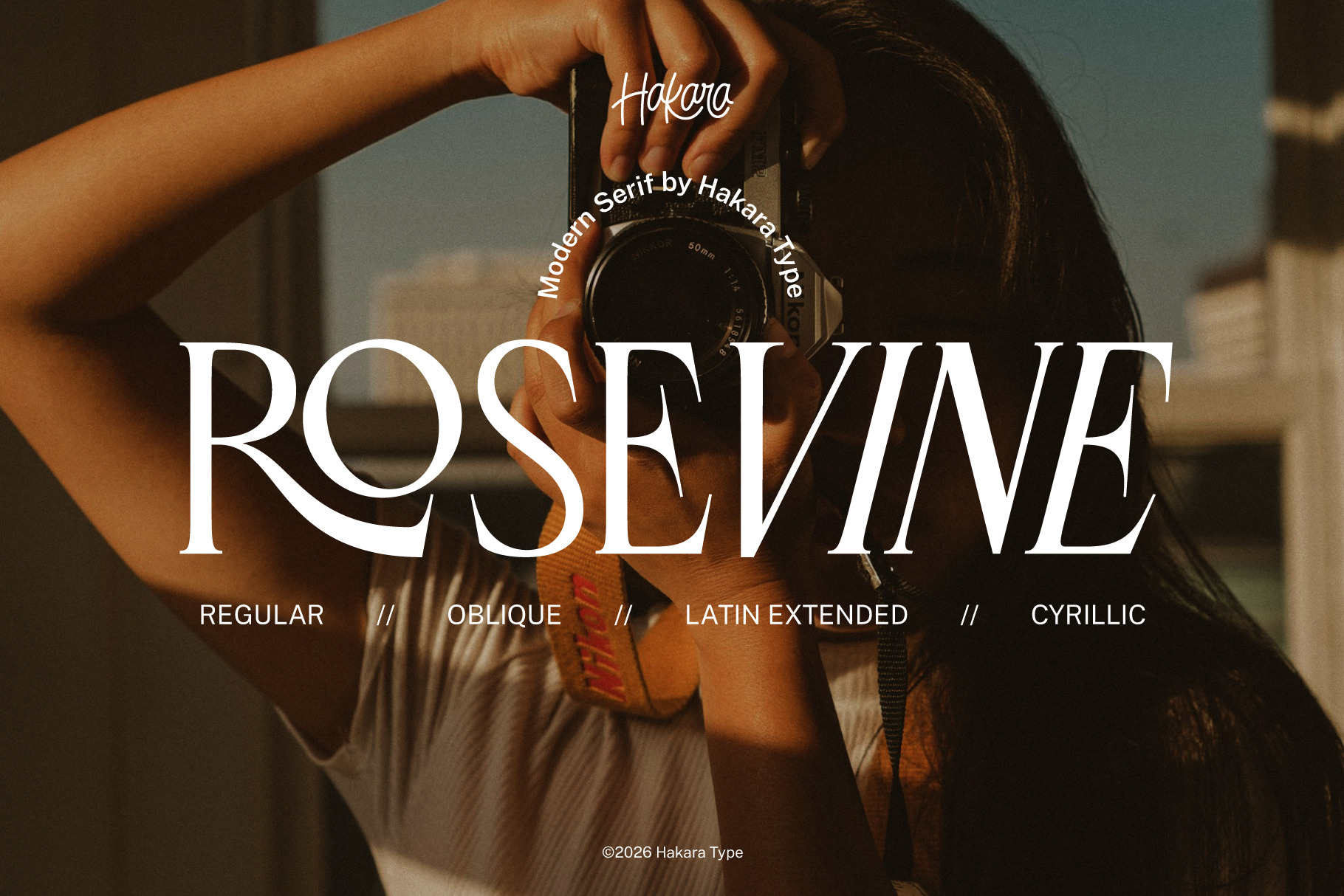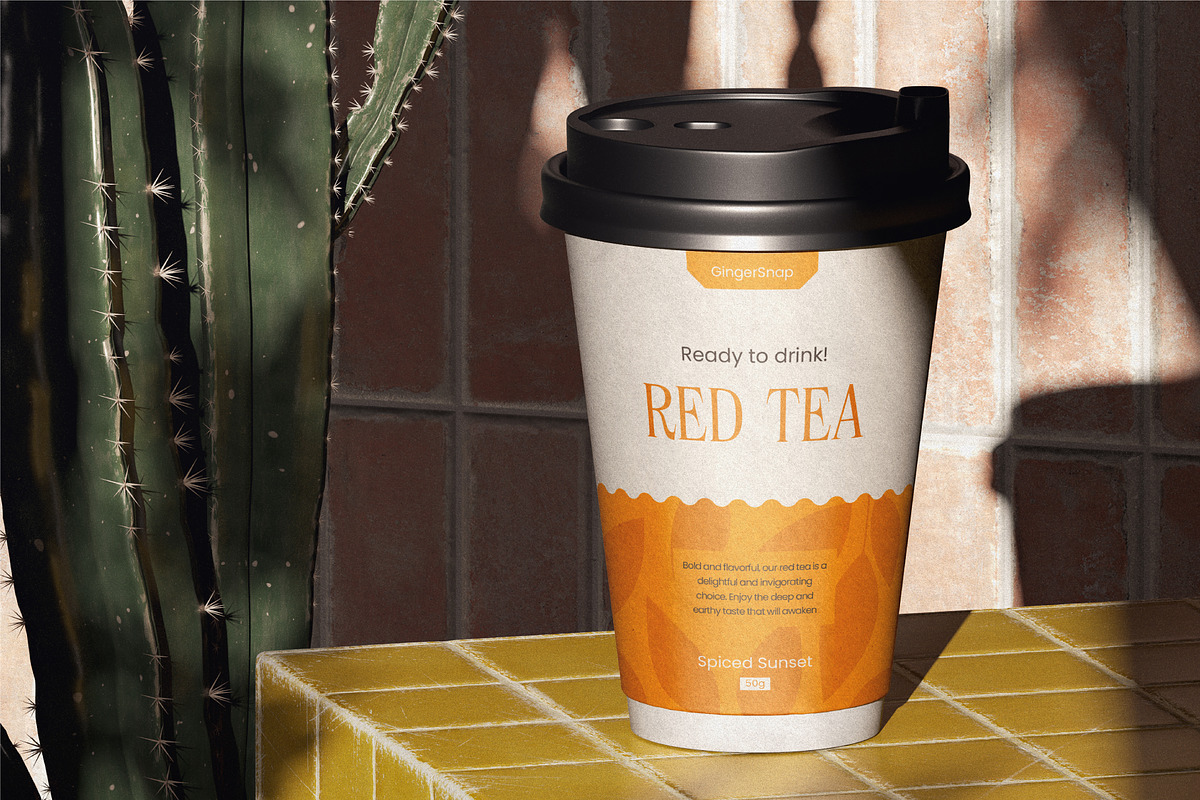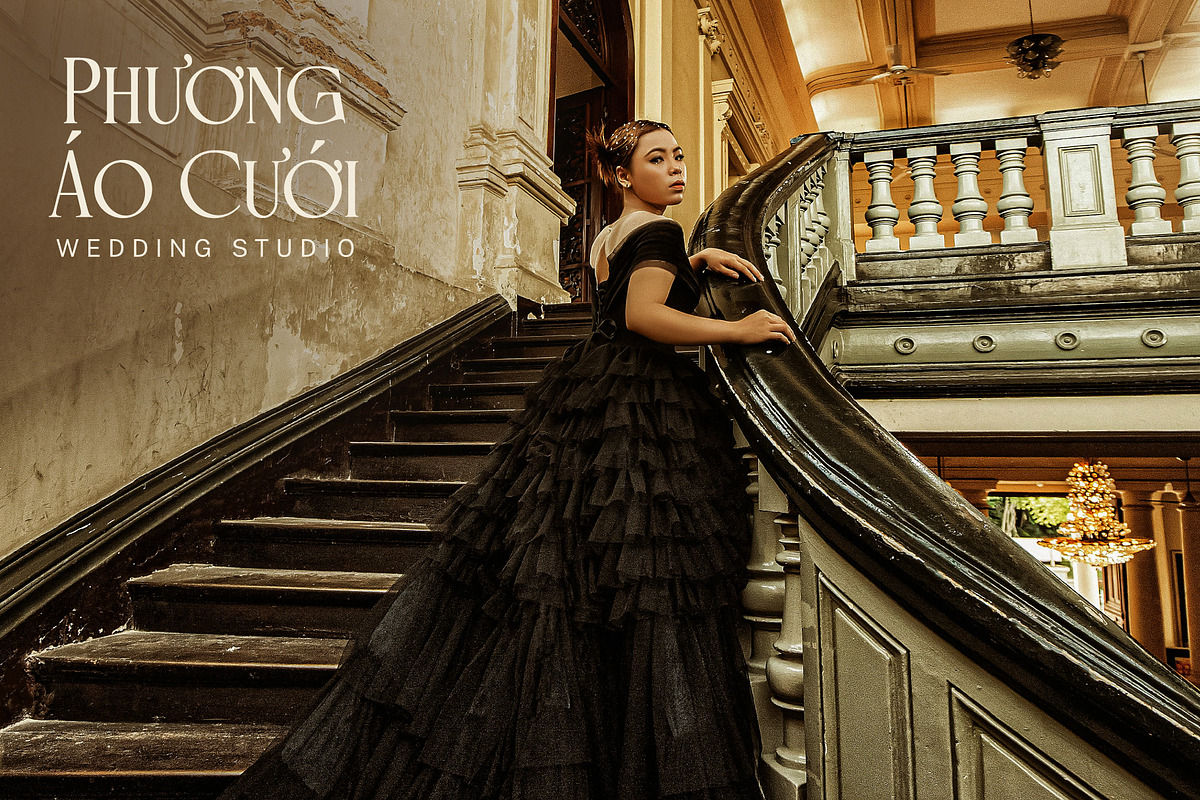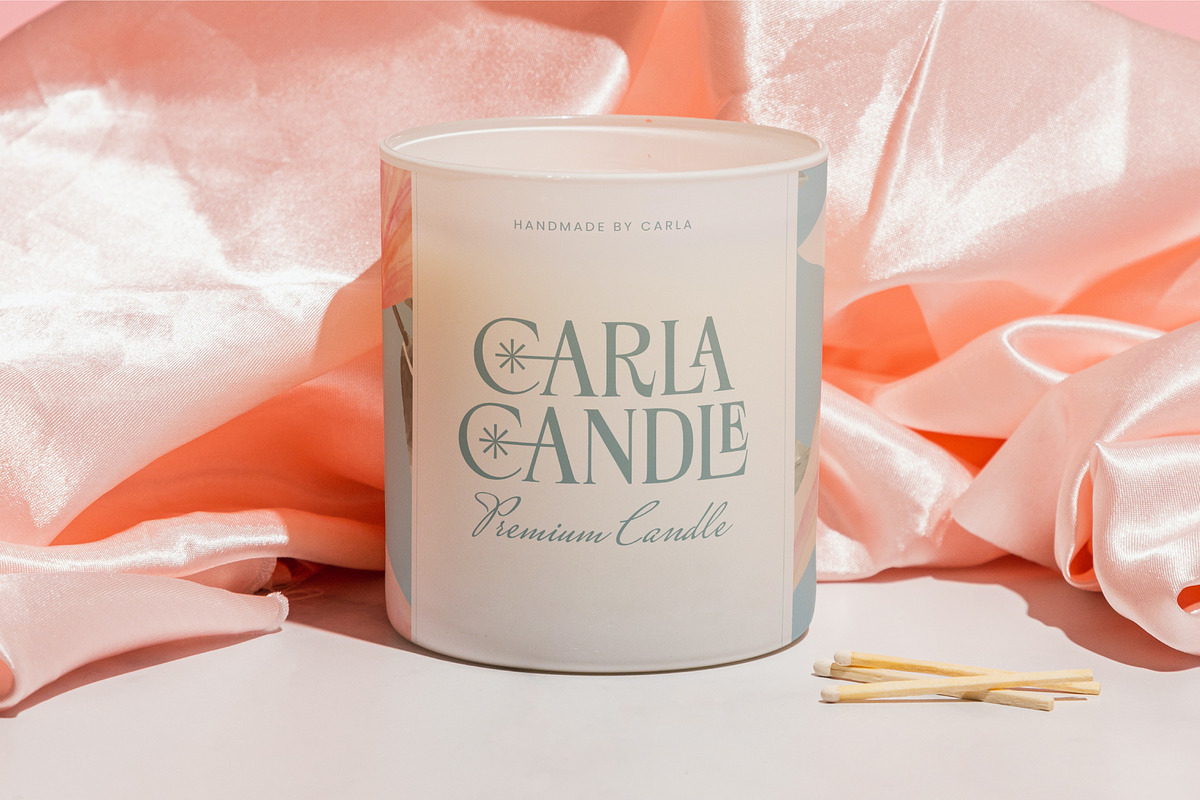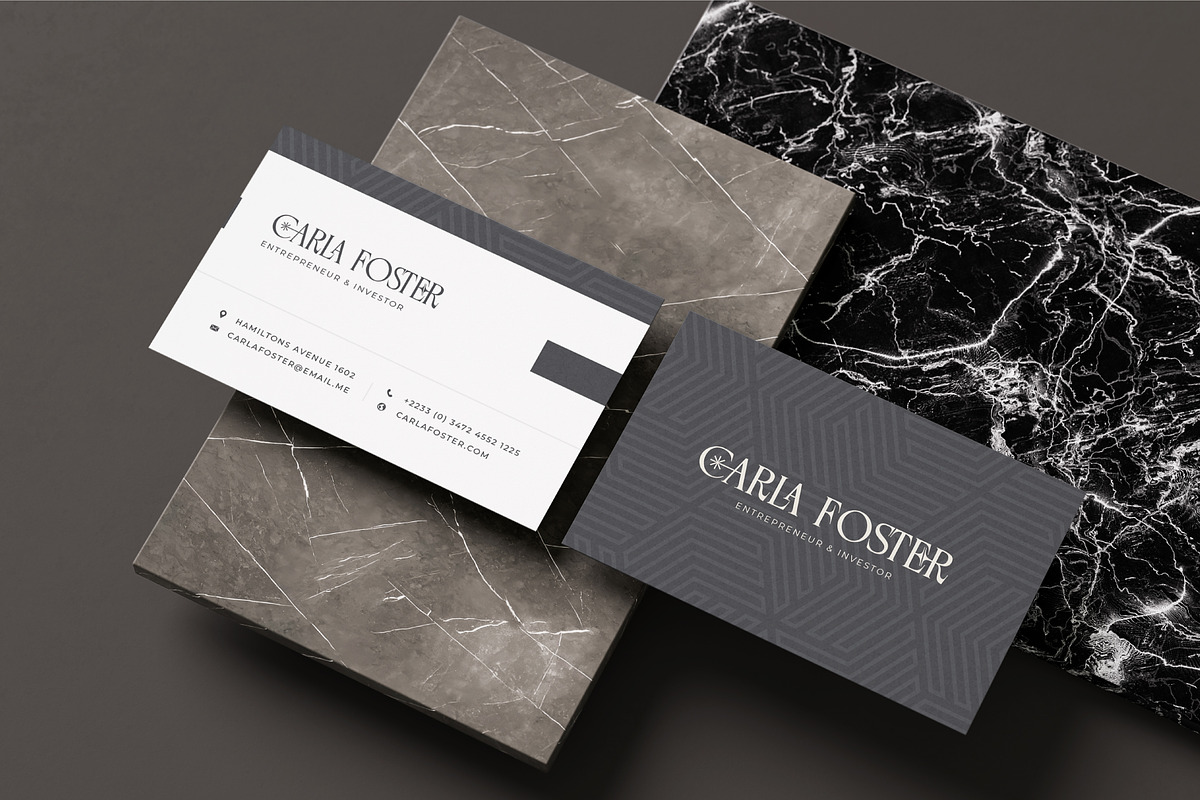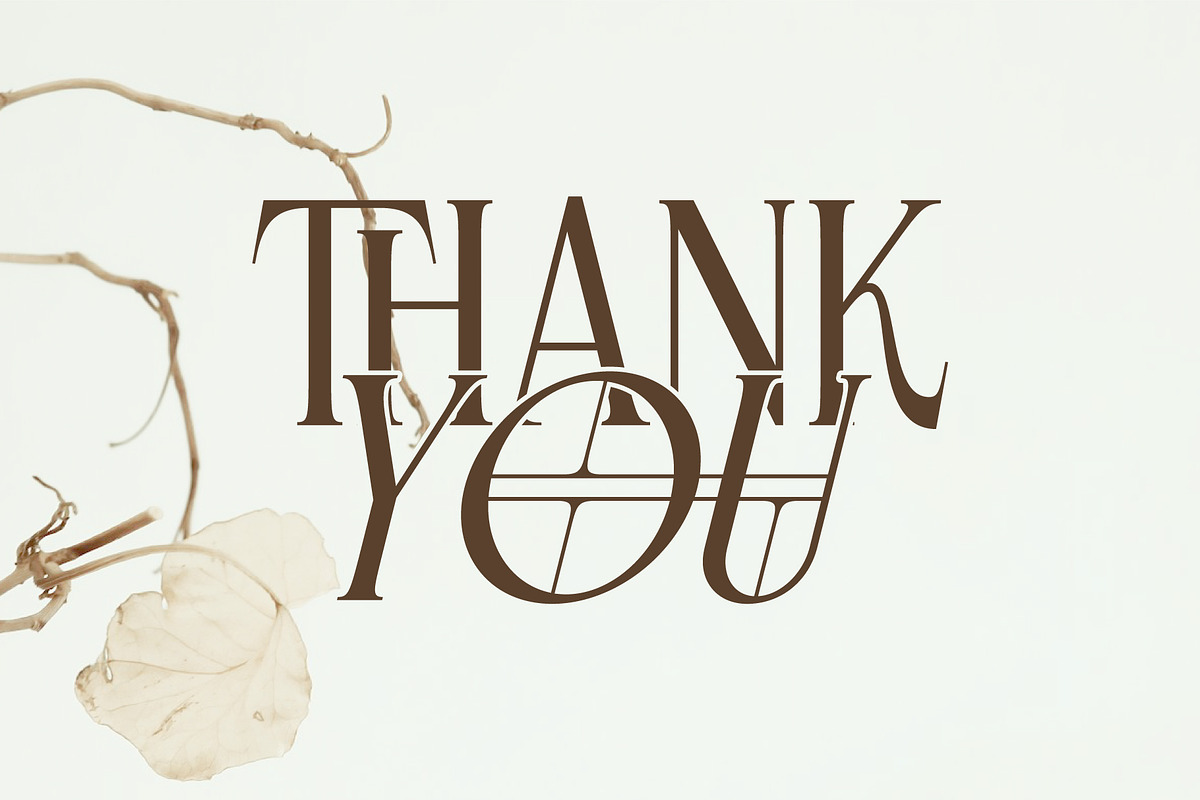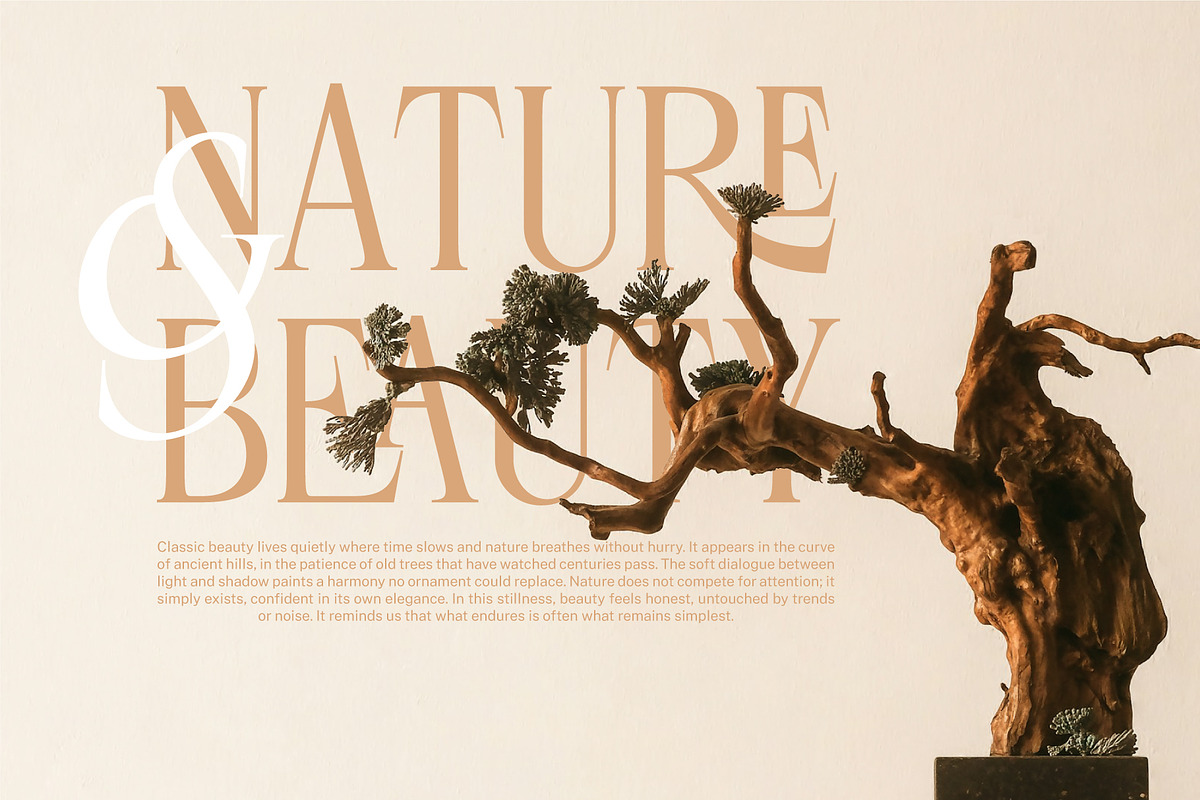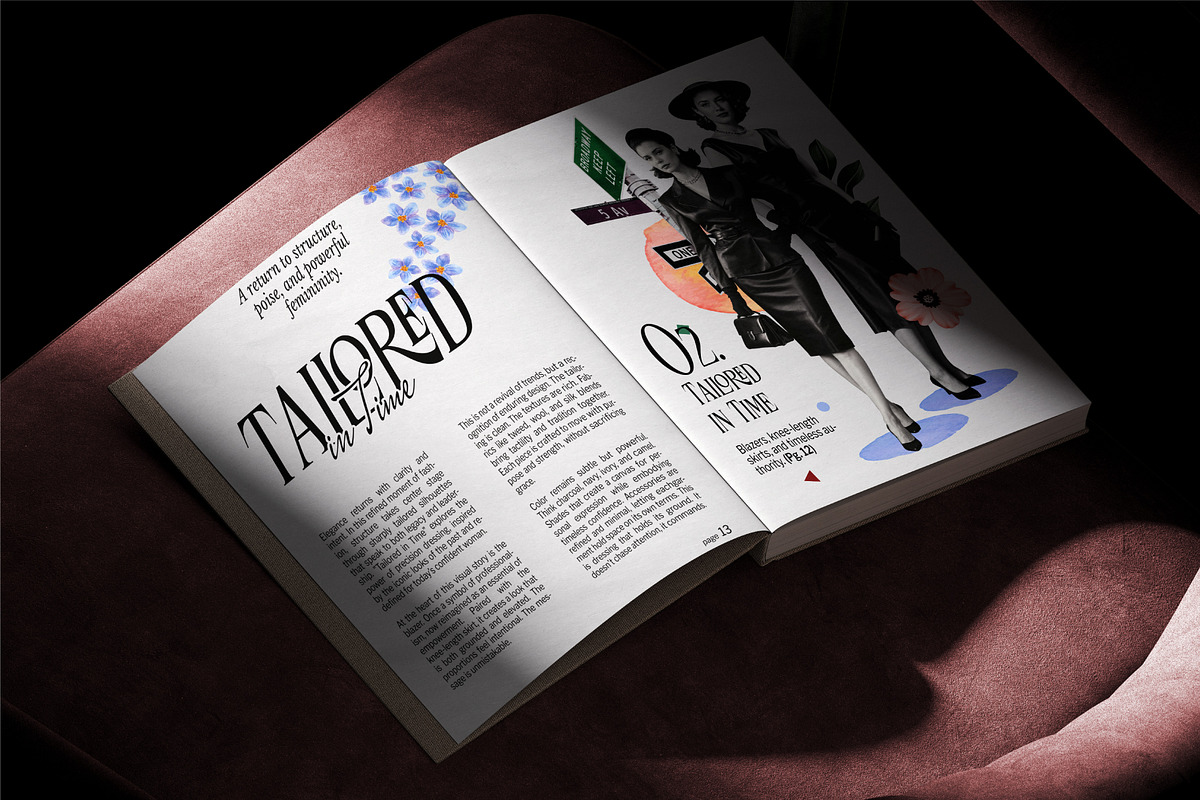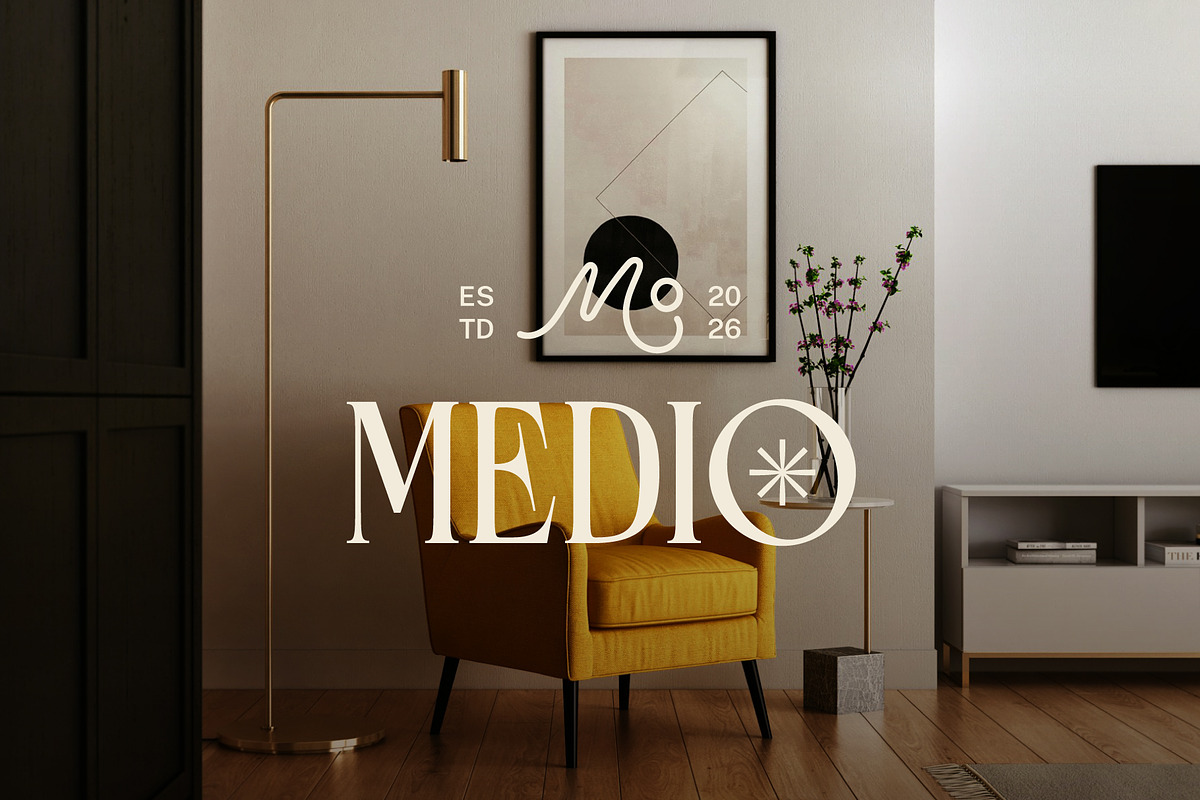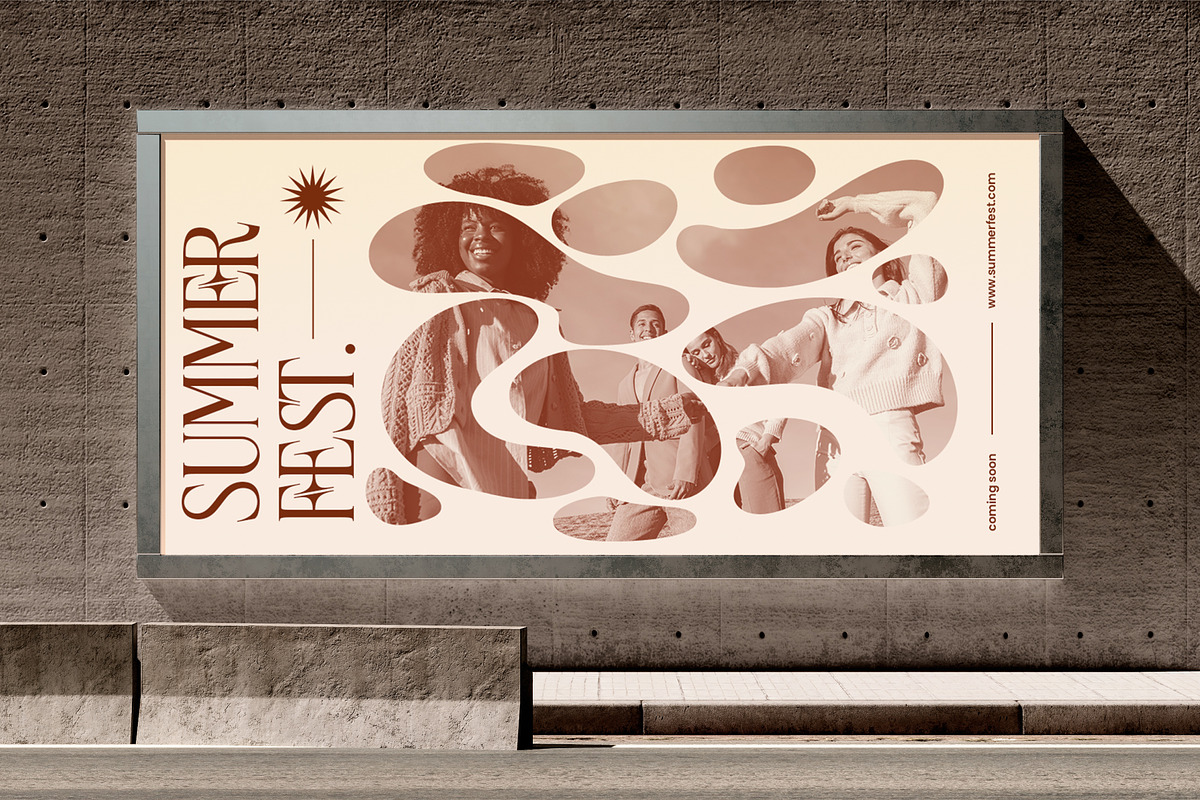
Rosevine – Modern Serif Font
Rosevine is a refined modern serif typeface designed with elegance, contrast, and timeless sophistication. It blends sharp serif details with smooth curves, creating a luxurious yet contemporary aesthetic that works beautifully across branding, editorial layouts, fashion campaigns, and high-end packaging.
This font comes in two styles: Regular and Oblique, allowing you to create dynamic typographic compositions with subtle movement and grace.
Rosevine supports Latin Extended, Greek, and Cyrillic, making it a versatile choice for multilingual branding and global design projects.
Perfect for: • Luxury branding • Fashion editorials • Logo design • Wedding invitations • Magazine headlines • Beauty and skincare packaging • Social media campaigns • High-end marketing materials
Features: • Regular & Oblique styles • Uppercase & Lowercase • Numerals & Punctuation • Latin Extended • Greek • Cyrillic • Multilingual Support • Ligatures • Alternates
Rosevine is where elegance meets modern expression.